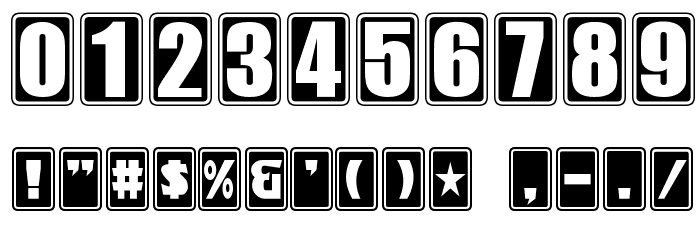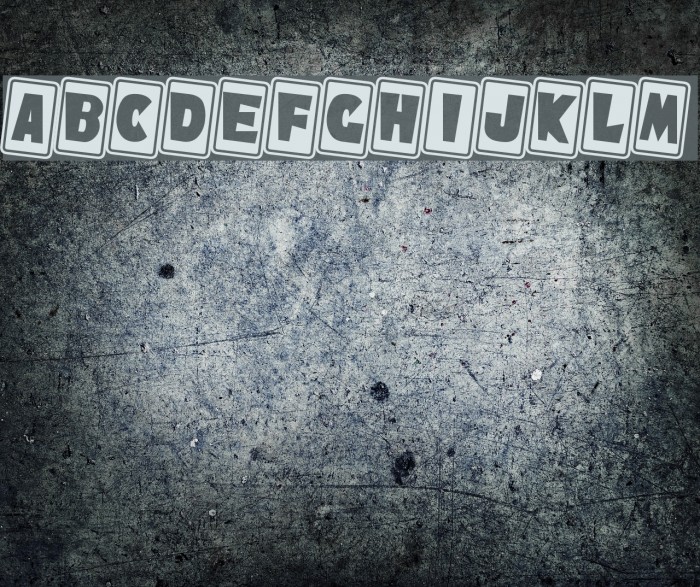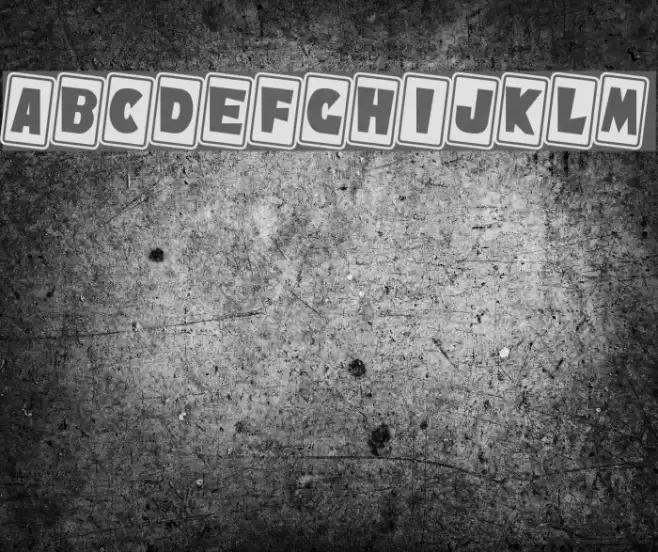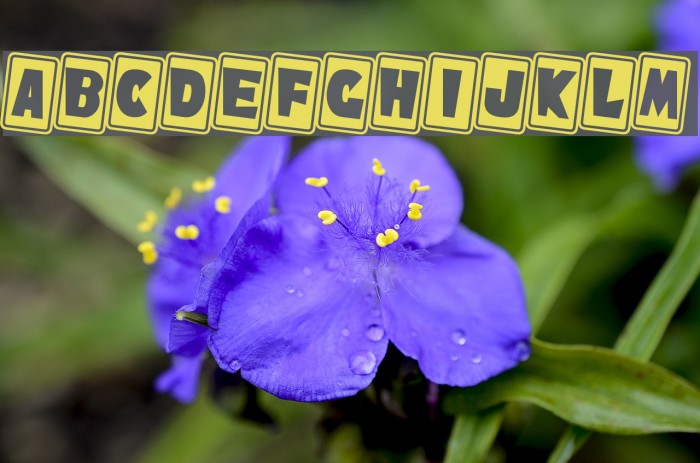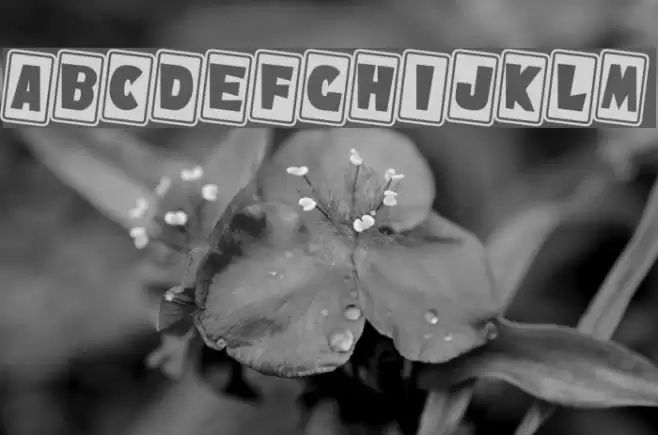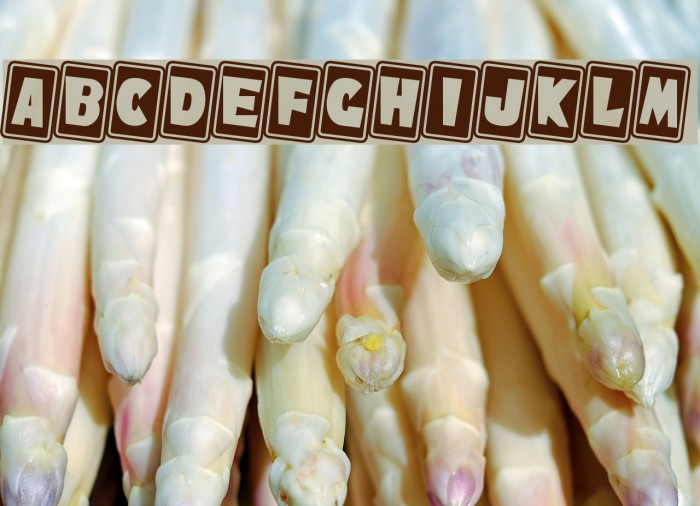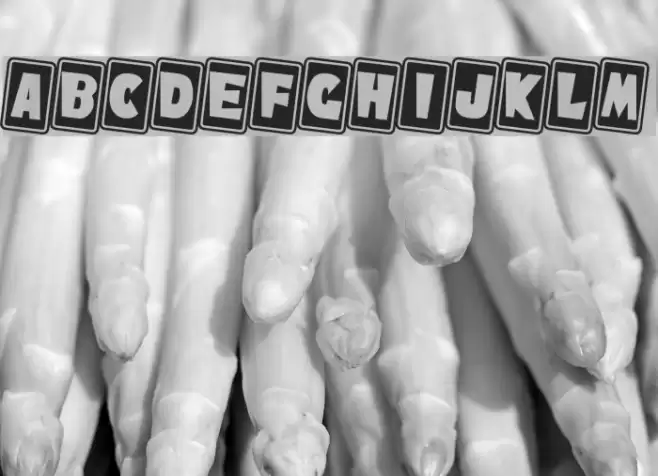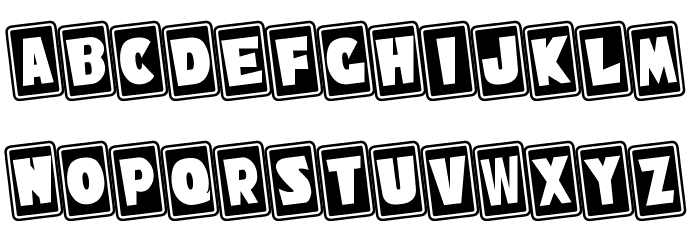
NiseSonicShuffle Font
NiseSonicShuffle Description
This font features bold, uppercase letters enclosed within a solid, rectangular border, giving it a strong and impactful appearance. The characters are designed with a playful, cartoonish style, characterized by thick strokes and a slight slant, adding a dynamic and energetic feel. The numbers and special characters follow the same design principles, maintaining consistency across the font. The enclosed design of each character makes it stand out, ideal for attention-grabbing headlines or titles. The font's unique style is both modern and retro, reminiscent of classic arcade games or comic book lettering.
| Overall Style | Playful, Retro, Modern |
| Proposed Projects | Ideal for video game graphics, comic book titles, posters, and children's book covers. |